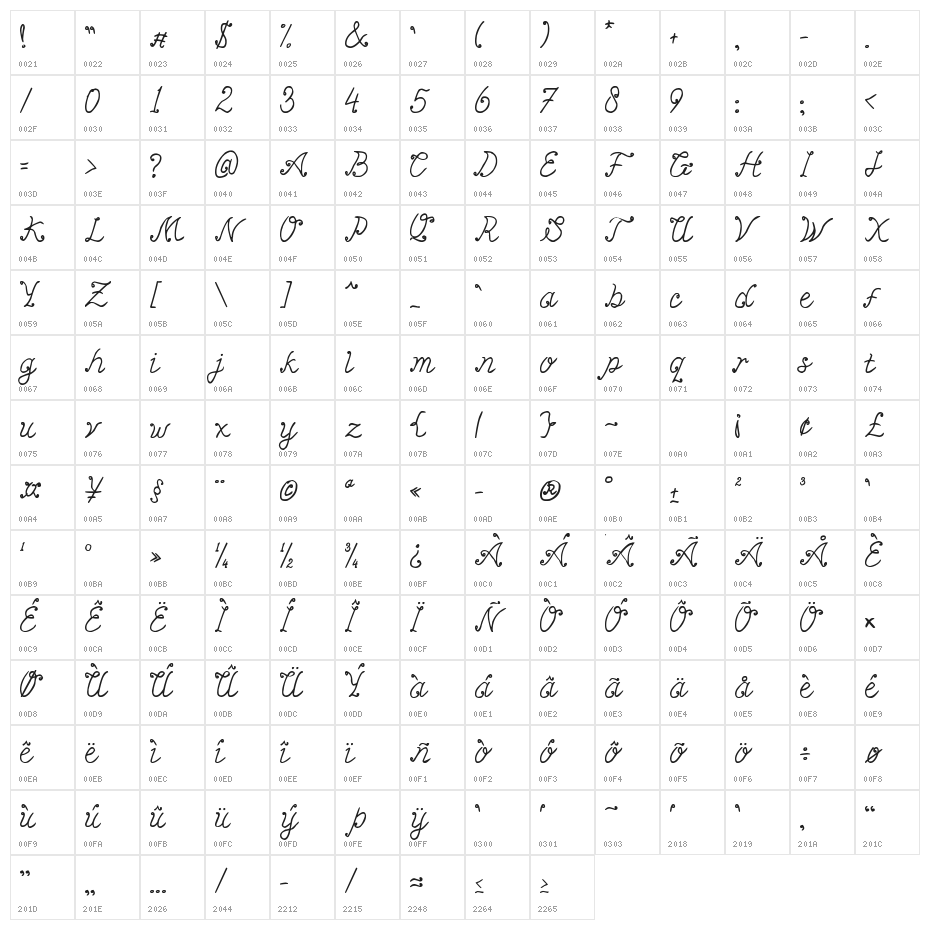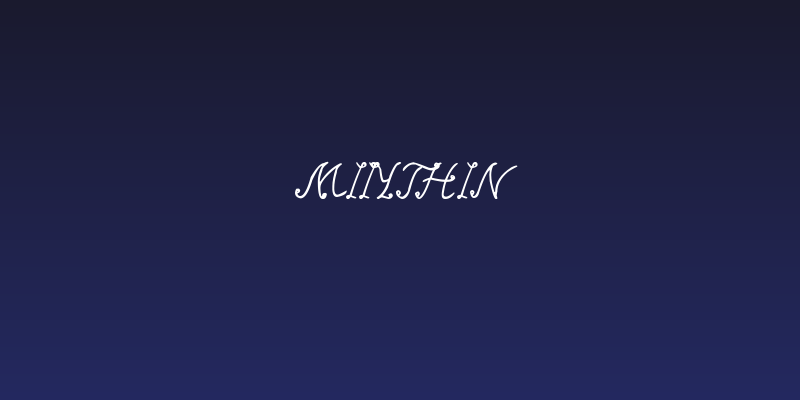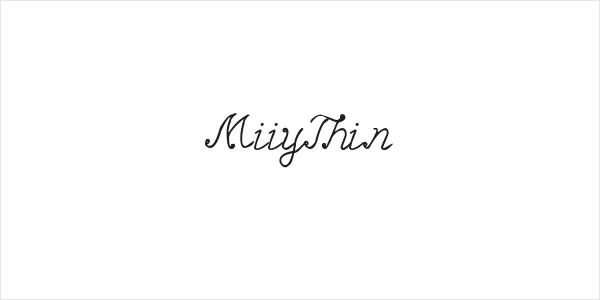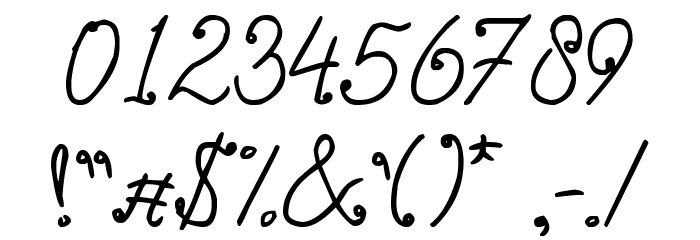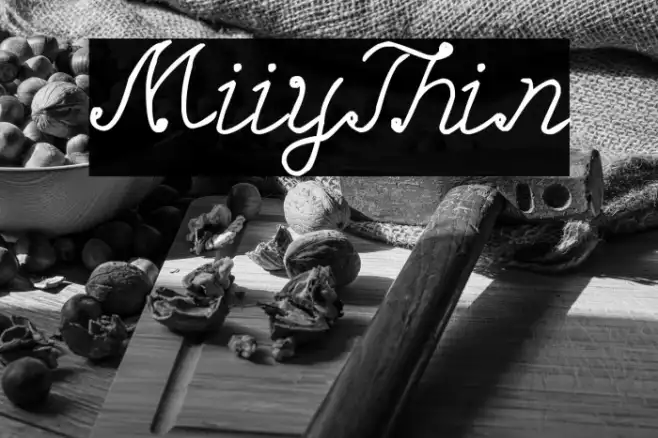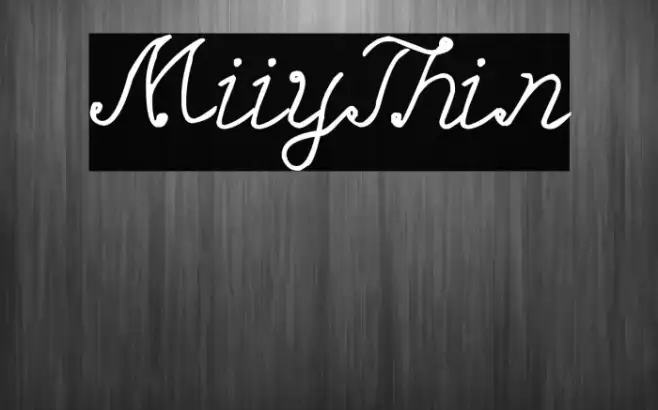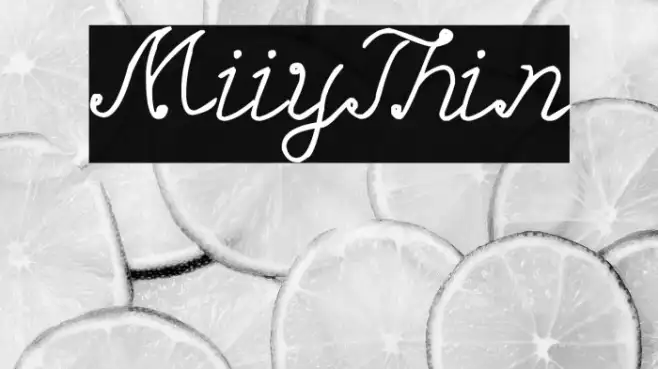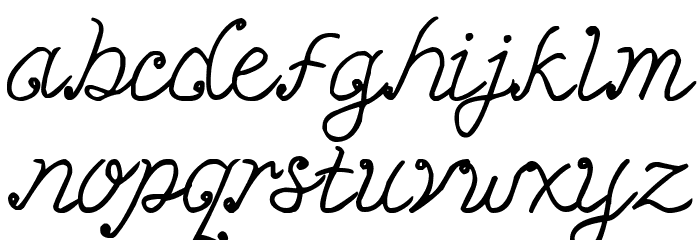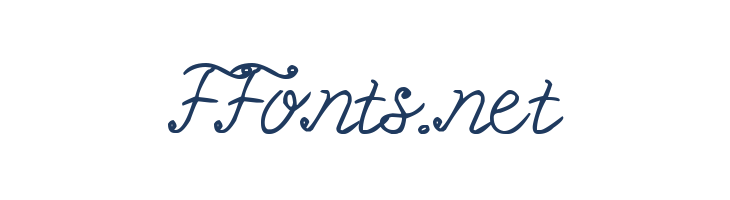
MiiyThin Font
MiiyThin Description
This font features a whimsical and decorative style with a playful touch. Each character is adorned with unique loops and curls, giving it a lively and dynamic appearance. The uppercase letters are elegantly crafted with consistent strokes, while the lowercase letters maintain a fluid and connected script-like form. Numbers and special characters follow the same decorative theme, ensuring a cohesive look across all elements. The font's design is both artistic and legible, making it suitable for creative projects that require a touch of elegance and flair.
| Use Case | Headlines, Logos, Artistic projects |
| Proposed Projects | Ideal for invitations, greeting cards, branding, and artistic projects that require a unique and decorative touch. |